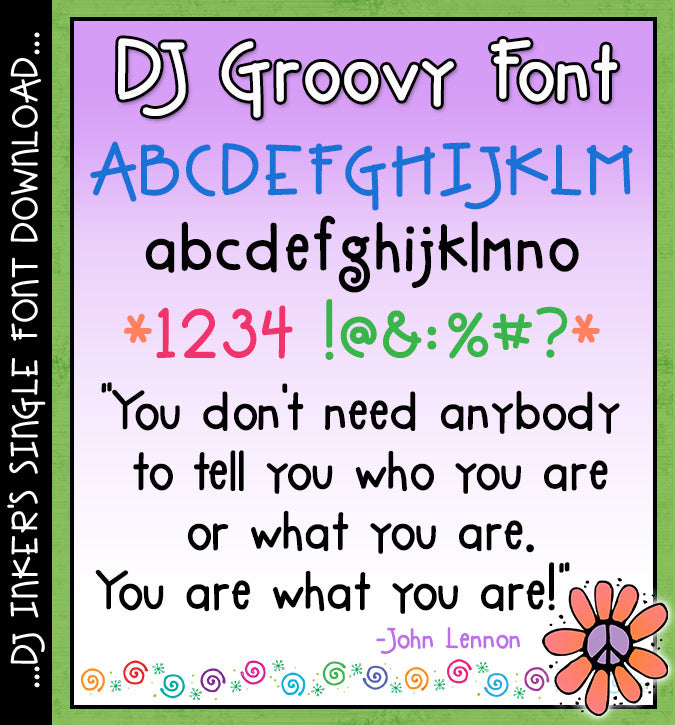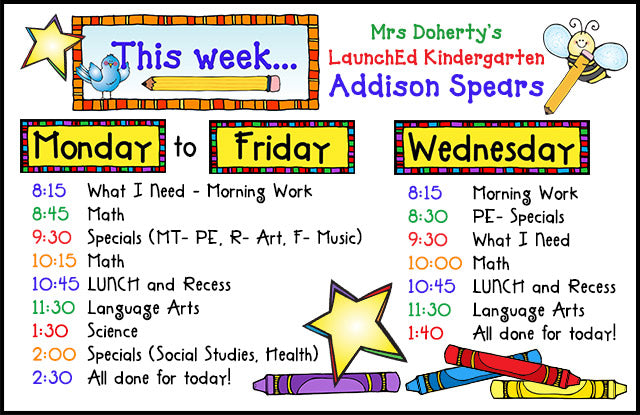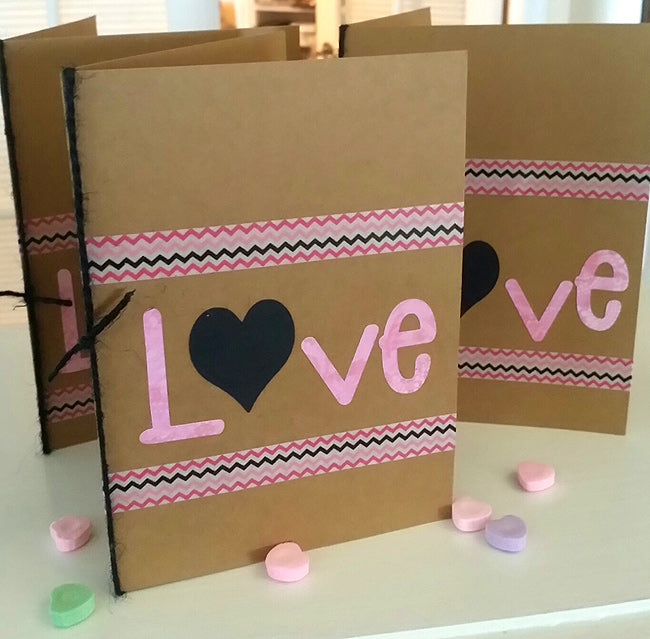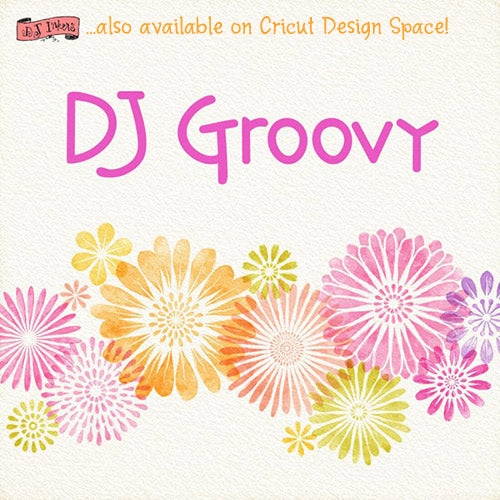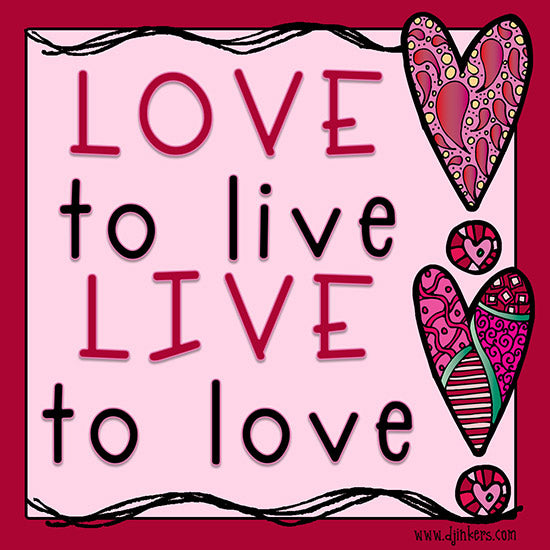
DJ Groovy Font Download
This cool & laid-back lettering is sure to make your projects look
DJ Groovy! This versatile font is simple & strong with playful touch
type up a smile for home, school, work or just for fun.